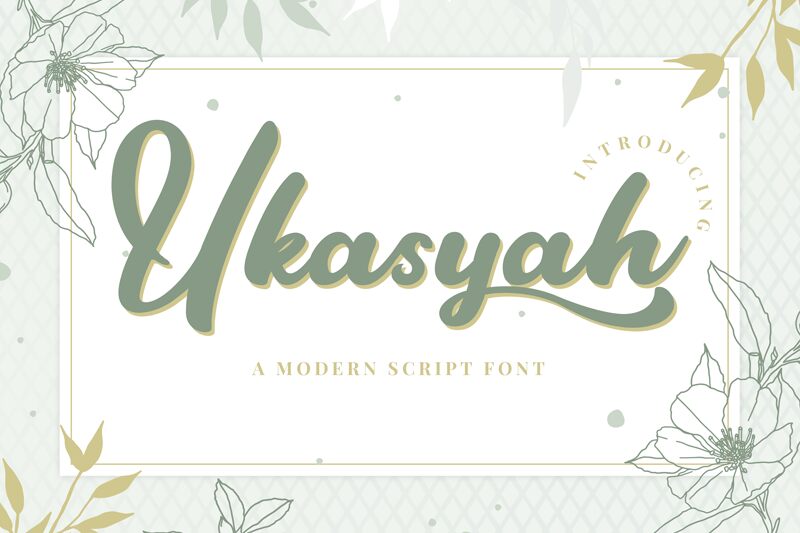
Ukasyah Regular
Ukasyah, crafted by Javatype Studio, is a modern font that combines the elegance of smooth brush strokes with the boldness of marker-inspired design. With its unique style, this font is perfect for a variety of projects that require a contemporary touch.
Use Ukasyah to add sophistication to your branding materials, bring life to your social media graphics, or create eye-catching posters and invitations. Its versatility makes it suitable for fashion magazines, trendy websites, artistic portfolios, and much more.
Let Ukasyah be the brush that paints your creative vision with style and finesse.